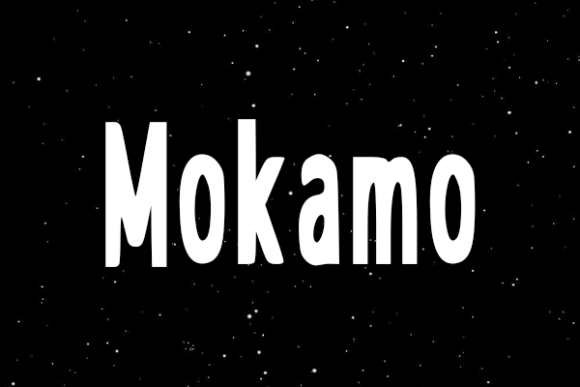
Introduction to Mokamo Font
Have you ever stared at a blank canvas, waiting for the perfect font to bring your creative project to life? I know I have. It’s that moment of frustration, when everything feels stagnant, and you need something to spark inspiration. For designers, finding the right font can be the difference between a mediocre design and a masterpiece. And that’s exactly where Mokamo Font comes in – a simple yet elegant sans serif font that’s about to become your new go-to design resource.
With its clean lines, high-quality aesthetic, and versatility, Mokamo Font is the perfect choice for film posters, headlines, block letters, subheadings, logo designs, and more. Whether you’re working on a creative project that requires a transparent background or a bold statement, this beautiful font is sure to deliver. And the best part? It’s available for a free download, making it an invaluable addition to any designer’s toolkit.
Key Features of Mokamo Font
- High-quality design: Mokamo Font is a beautifully crafted font perfect for creative projects that require a unique touch.
- Transparent background: The font has a transparent background, allowing designers to easily place it over any image or background.
- High resolution: The font is available in high resolution, making it perfect for use in large-scale designs or print materials.
- Unique and creative: Mokamo Font’s unique design makes it an excellent choice for creative projects that require a distinctive look.
- Perfect for digital and print use: With its high-quality design and transparent background, Mokamo Font is ideal for use in both digital and print materials.
Honest Review: Mokamo Font
I recently stumbled upon the Mokamo Font, a creative project that caught my attention with its unique aesthetic. As a designer, I was excited to dive in and see what it had to offer.
What works well is the Mokamo Font’s versatility. It’s a high-quality font that can be used in various design contexts, from logos to typography-heavy projects. The font is also free to download, making it a valuable design resource for those on a budget.
- ✨ High-quality design that can be used for a wide range of creative projects
- ✨ Transparent background, making it easy to integrate with any design
One of the limitations of the Mokamo Font is its limited character set. It’s primarily designed for Latin-based languages, which may not be suitable for designers working with non-Latin scripts.
Overall, the Mokamo Font is a solid addition to any designer’s toolkit. While it may not be perfect, its high-quality design and versatility make it a valuable resource for creative projects.
⚠️ Limited character set may not be suitable for non-Latin scripts
Mokamo Font is a high-quality, free design resource perfect for creative projects. Its unique style and transparent background make it an ideal choice for designers looking to add a touch of elegance to their work.
Mokamo Font is perfect for:
- Artistic and creative projects